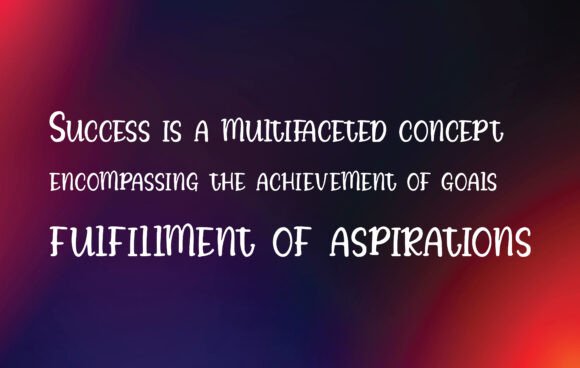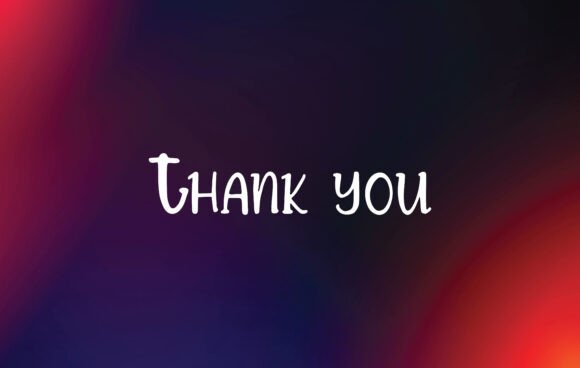
Discover the Beauty of Graham Font: Elevate Your Designs with this Lovely Handwritten Font
Are you a designer or crafter looking for a font that can take your creative ideas to the next level? Look no further than Graham Font, a lovely and beautiful handwritten font that is sure to impress. With its unique and elegant style, Graham Font is the perfect choice for creating eye-catching logos, branding, and quotes that will leave a lasting impression on your audience.
The Characteristics of Graham Font
Graham Font is a handwritten font that exudes a sense of sophistication and elegance. Its flowing lines and curves give it a natural and organic feel, making it perfect for designs that require a personal touch. The font is highly legible, even at small sizes, making it versatile for use in a variety of applications, from business cards to billboards.
One of the standout features of Graham Font is its uniqueness. Unlike generic fonts that can be found anywhere, Graham Font has a distinct character that sets it apart from the rest. Its beauty lies in its imperfections, giving it a human touch that is hard to replicate with machine-generated fonts.
Why Choose Graham Font?
So, why should you choose Graham Font for your design projects? Here are just a few reasons:
- Elegance and Sophistication: Graham Font adds a touch of elegance and sophistication to any design, making it perfect for high-end brands and luxury products.
- Versatility: Graham Font is highly versatile and can be used in a variety of applications, from logos and branding to quotes and social media graphics.
- Uniqueness: Graham Font is a one-of-a-kind font that will set your designs apart from the competition.
- Easy to Read: Despite its elegant style, Graham Font is highly legible, even at small sizes.
How to Use Graham Font in Your Designs
Graham Font is easy to use and can be incorporated into your designs in a variety of ways. Here are a few ideas to get you started:
- Logos and Branding: Use Graham Font to create a unique and memorable logo for your brand.
- Quotes and Social Media Graphics: Add a touch of elegance to your quotes and social media graphics with Graham Font.
- Business Cards and Stationery: Use Graham Font to add a personal touch to your business cards and stationery.
- Advertising and Marketing Materials: Graham Font is perfect for use in advertising and marketing materials, such as brochures and flyers.
Tips for Getting the Most Out of Graham Font
Here are a few tips for getting the most out of Graham Font:
- Experiment with Different Sizes and Colors: Graham Font looks great in a variety of sizes and colors, so don’t be afraid to experiment and find the combination that works best for your design.
- Pair it with Other Fonts: Graham Font pairs well with other fonts, so try combining it with a bold font for a striking contrast.
- Use it Consistently: Use Graham Font consistently throughout your design to create a cohesive look.
In conclusion, Graham Font is a beautiful and elegant handwritten font that is sure to take your designs to the next level. With its unique character, versatility, and ease of use, Graham Font is the perfect choice for designers and crafters looking to add a touch of sophistication and elegance to their work. So why wait? Download Graham Font today and start creating stunning designs that will leave a lasting impression on your audience.